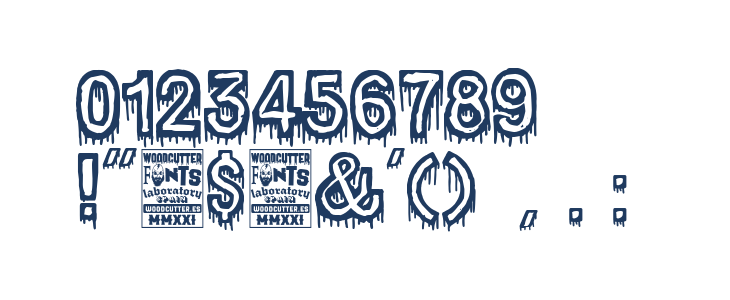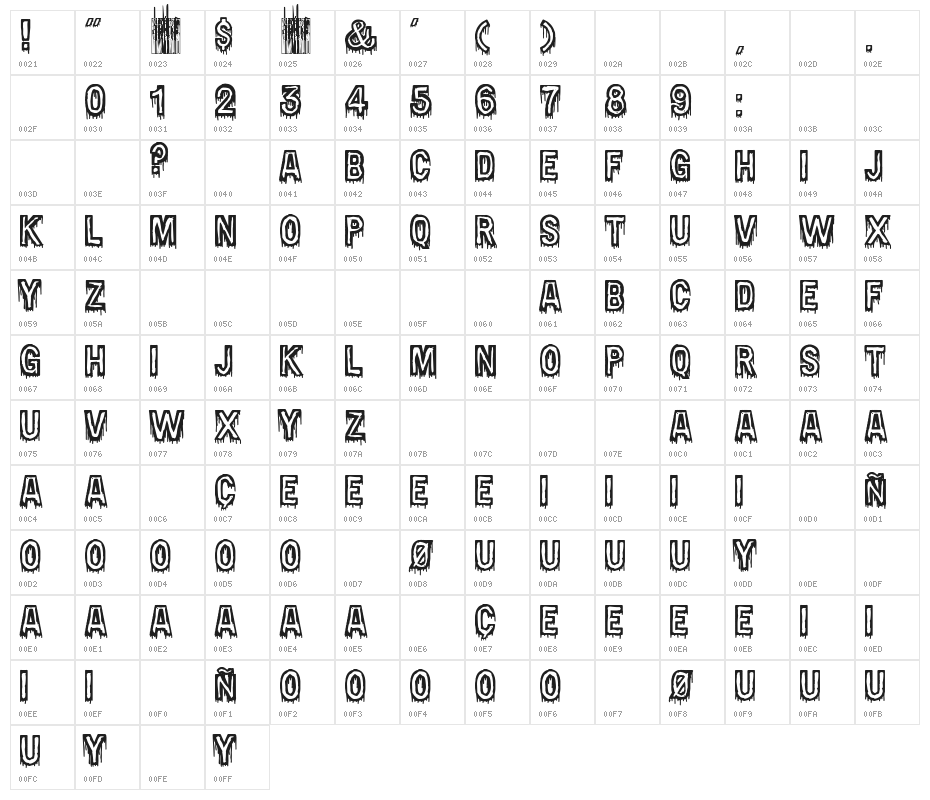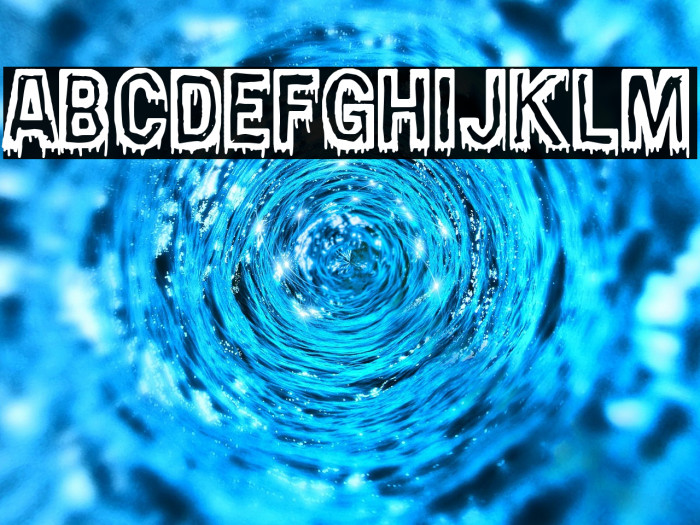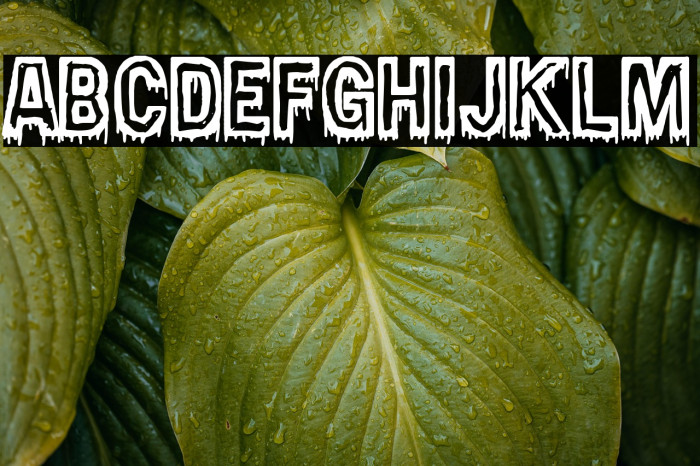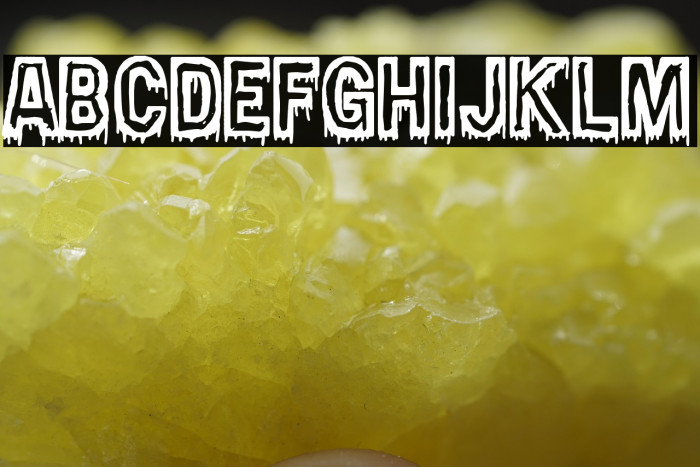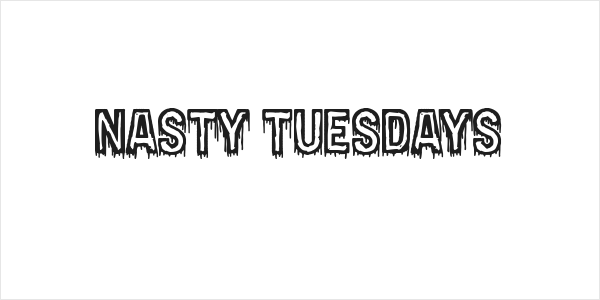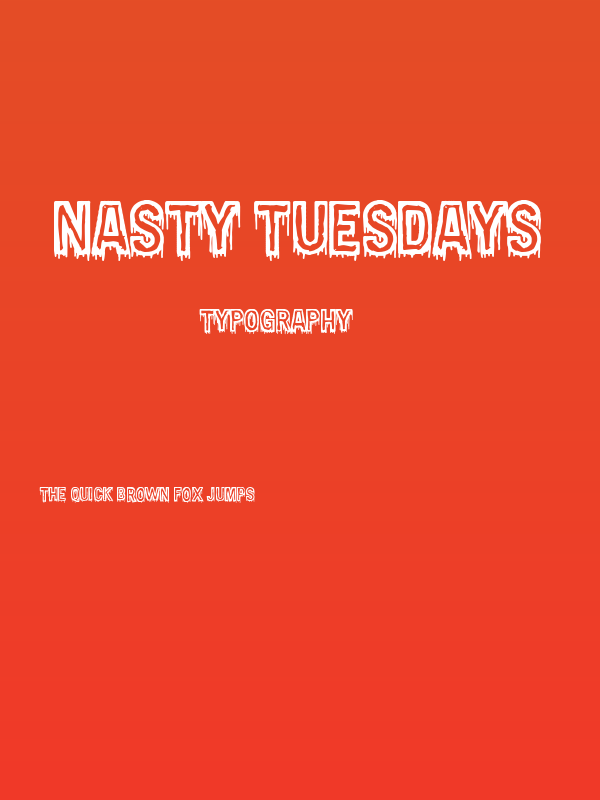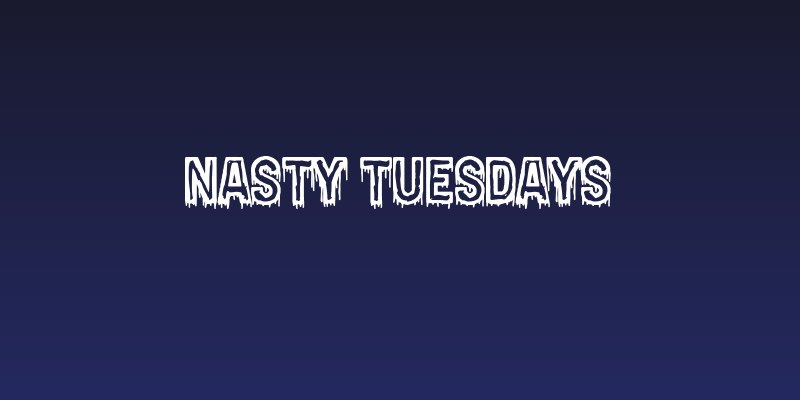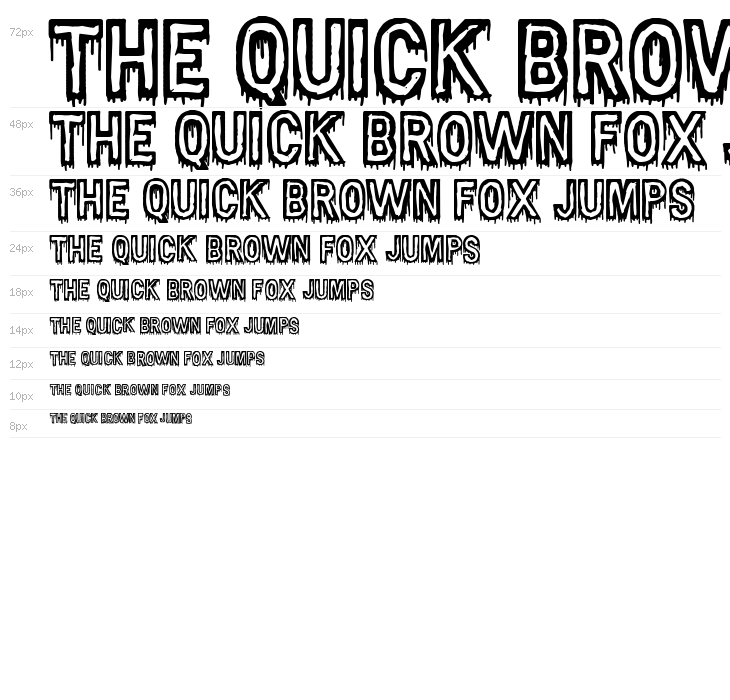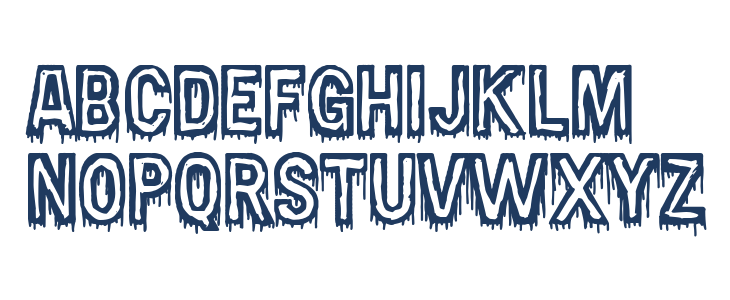
Nasty Tuesdays Font
Nasty Tuesdays Description
This font features a bold and dramatic style with a dripping effect that gives it a unique, edgy appearance. The letters are uppercase and have a thick, solid structure, making them highly visible and impactful. The dripping effect adds a sense of movement and fluidity, reminiscent of melting or liquid forms. This design is perfect for creating a sense of urgency or intensity, often associated with horror or thriller themes. The numbers and special characters maintain the same dripping style, ensuring consistency across all text elements.
| Use Case | Headlines, Posters, Logos |
| Proposed Projects | Ideal for Halloween-themed projects, horror movie posters, edgy graphic designs, and any creative work that requires a bold, attention-grabbing font. |